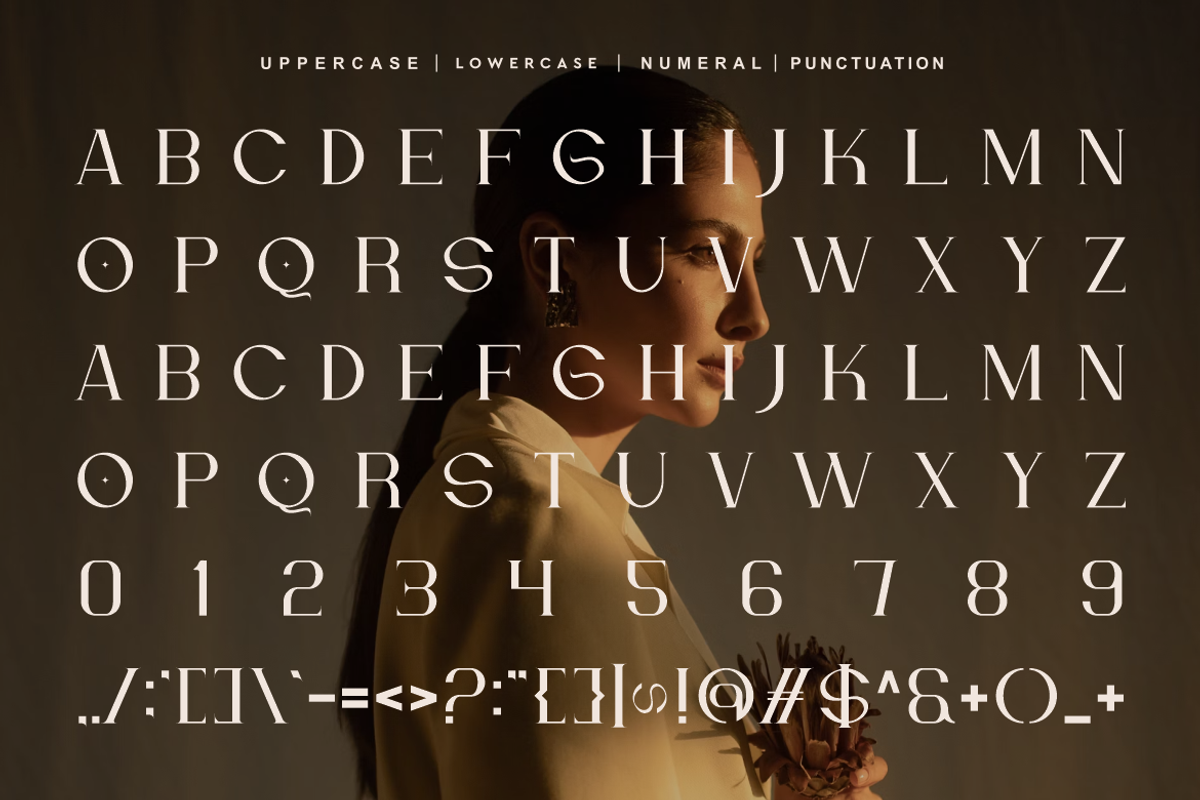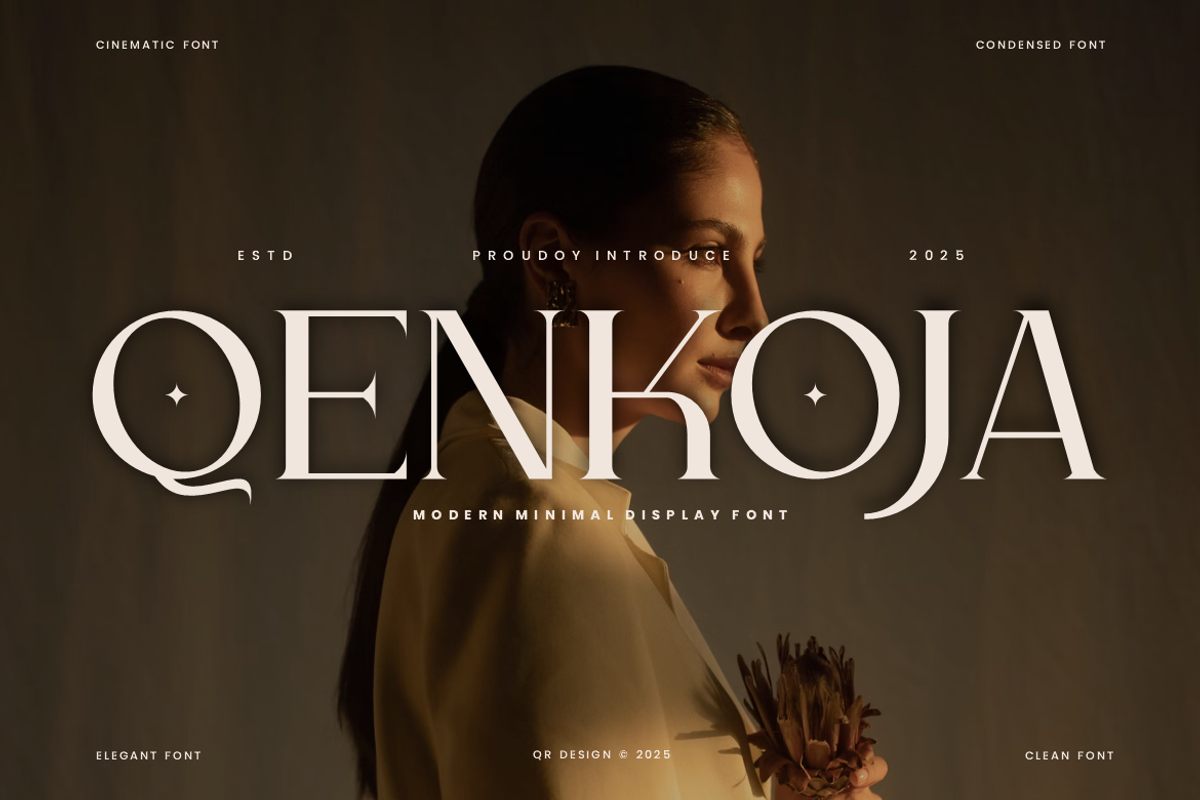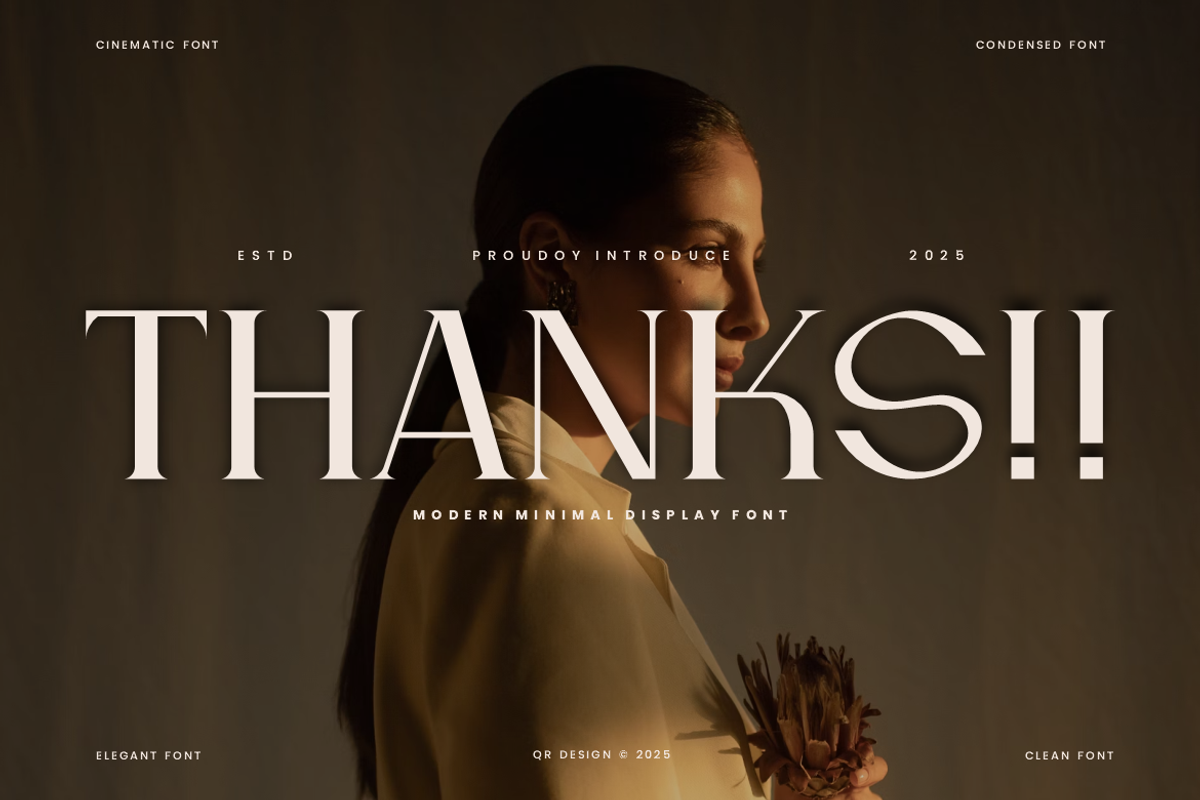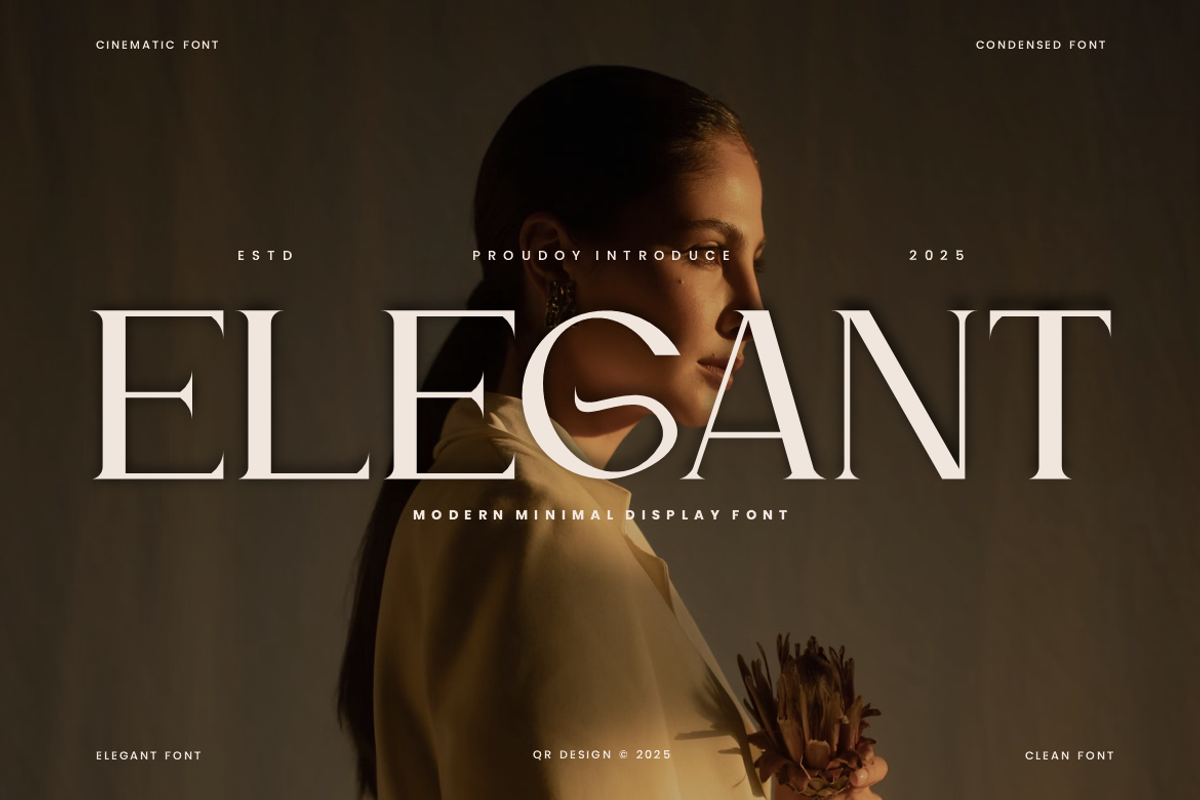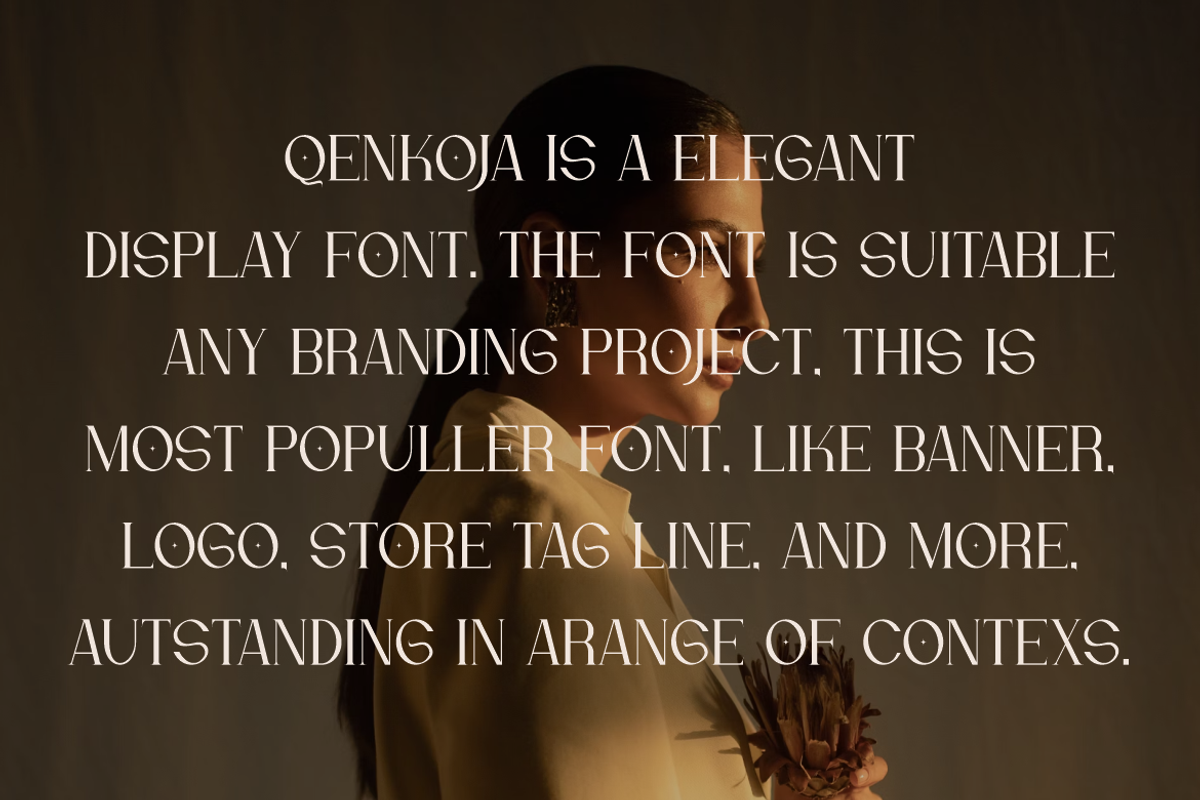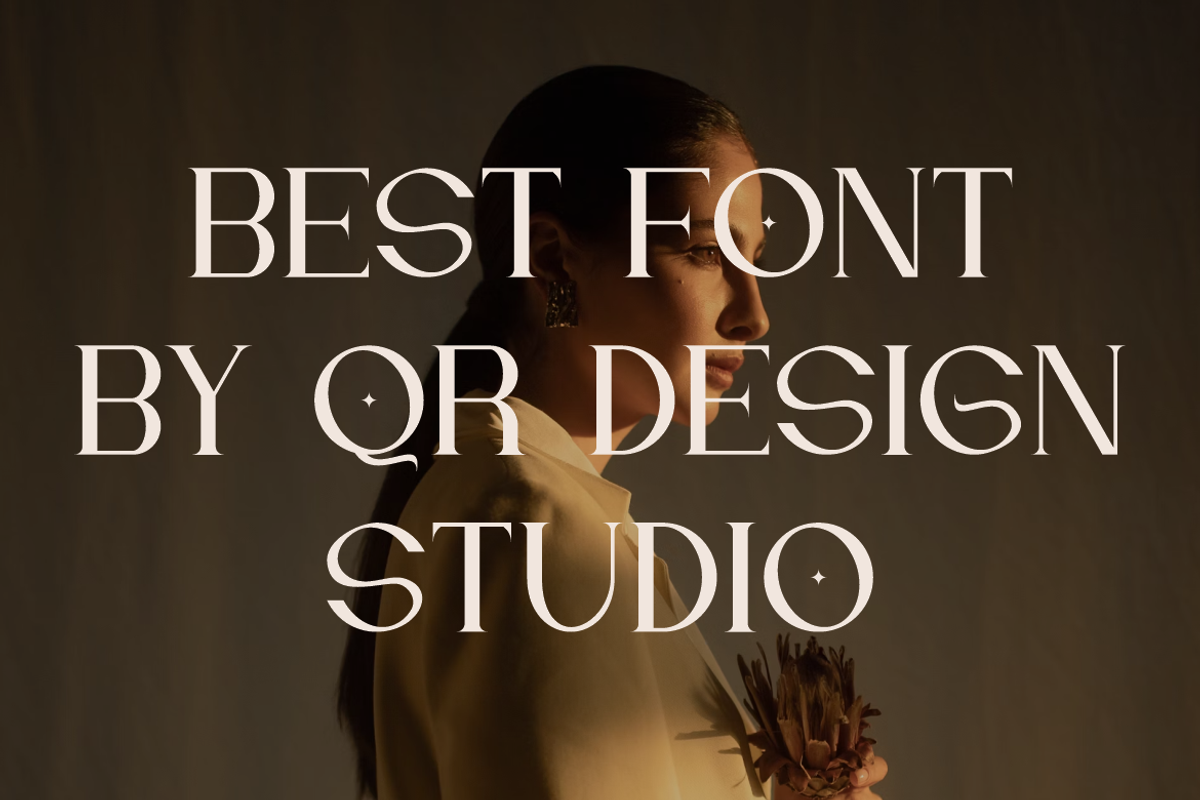
Qenkoja - Elegant Minimal Font
Qenkoja - Elegant Font is a bold and authentic display font. The font is suitable for any branding project like poster, logo, sport, and many more. Outstanding in a wide range of contexts.